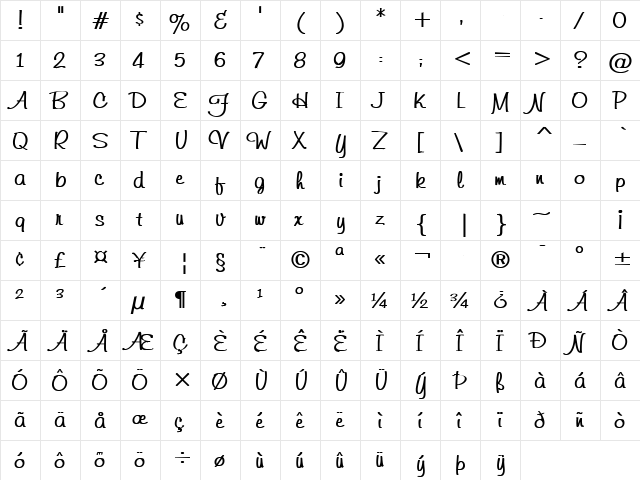
Imbalance 1 Bold
Design Context for Imbalance 1 Typeface
Imbalance 1 is a composed and adaptable typeface that performs quietly and consistently across a wide range of design contexts. The heavy weight commands attention and anchors typographic hierarchies.